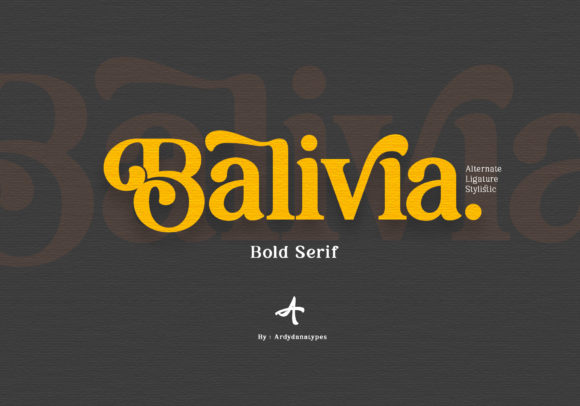
Prepare to be mesmerized by the captivating charm of Balivia Font, an extraordinary serif typeface that effortlessly blends boldness and elegance. Crafted with meticulous precision by the renowned ardyanatypes, this font is not just a collection of characters—it's an invitation to unleash your creativity and make a lasting impression.
Balivia Font's captivating essence shines brightest in the realm of bold numbers. Its numerals exude a power and confidence that will elevate your designs to new heights. Whether you're crafting eye-catching posters, designing impactful presentations, or creating social media content that demands attention, Balivia Font's bold numbers will command attention and leave an unforgettable mark.
But its allure extends far beyond its numerical prowess. Balivia Font's versatility knows no bounds. Its graceful serifs and elegant curves lend a touch of sophistication to any project, making it the perfect choice for logos, branding, and any design that seeks to exude both strength and refinement.
Imagine your designs adorned with Balivia Font's captivating presence. The possibilities are endless. Your posters will captivate, your presentations will inspire, and your social media content will ignite engagement.
Don't settle for ordinary fonts that blend into the background. Embrace the captivating allure of Balivia Font and let your creations shine with a brilliance that will leave a lasting impression.